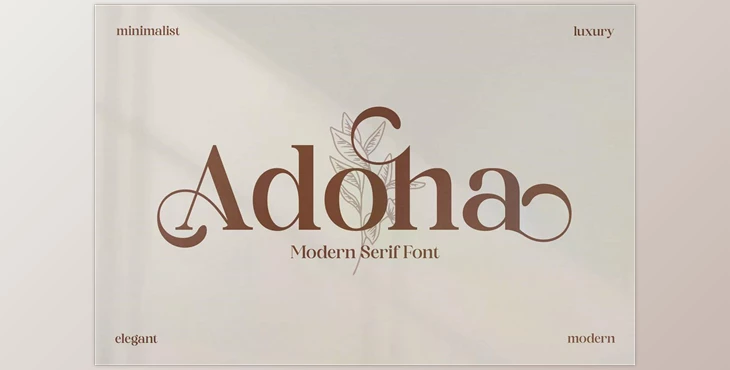
Adoha Serif Font Creativemarket 6975938:
We are proud to present Adoha Typeface, created by Storytype, a modern serif and classic typeface that comes with its distinct style and contemporary appearance. This typeface is great to create a classy and elegant logo, book or film name design, fashion brand clothing, magazines and lettering, quotes, and much more.